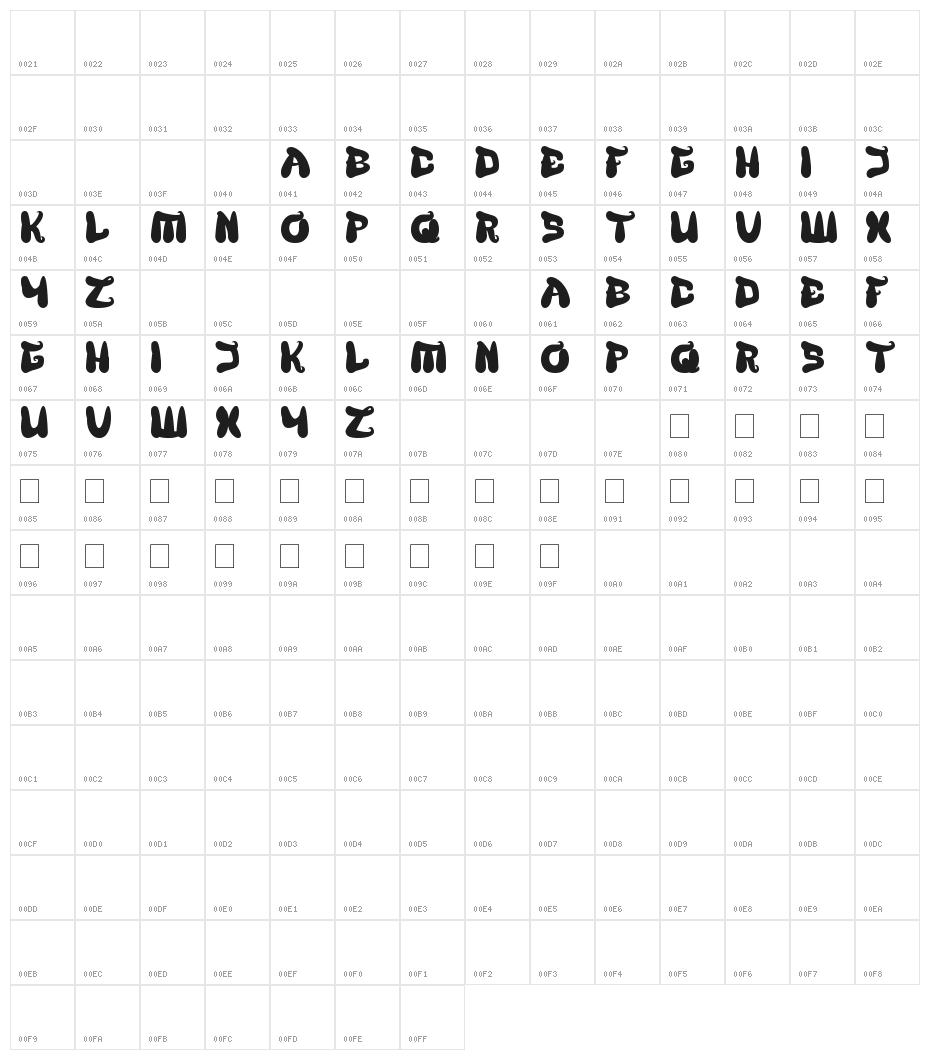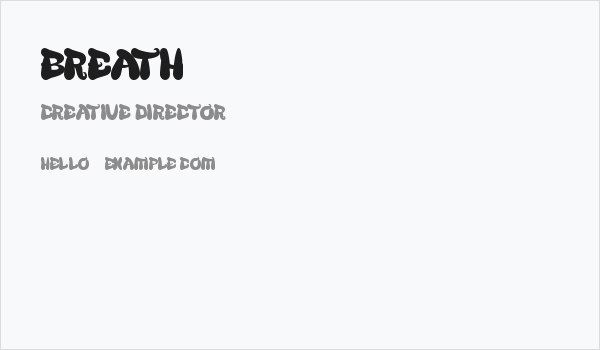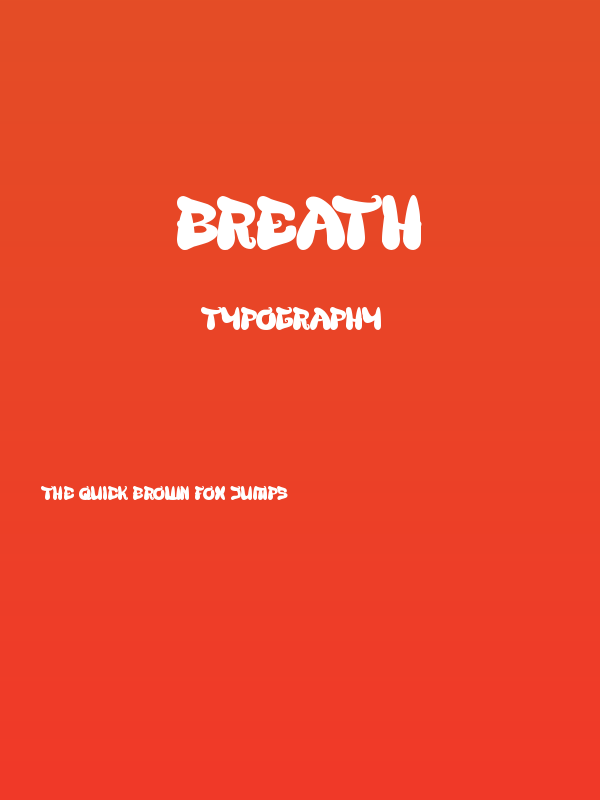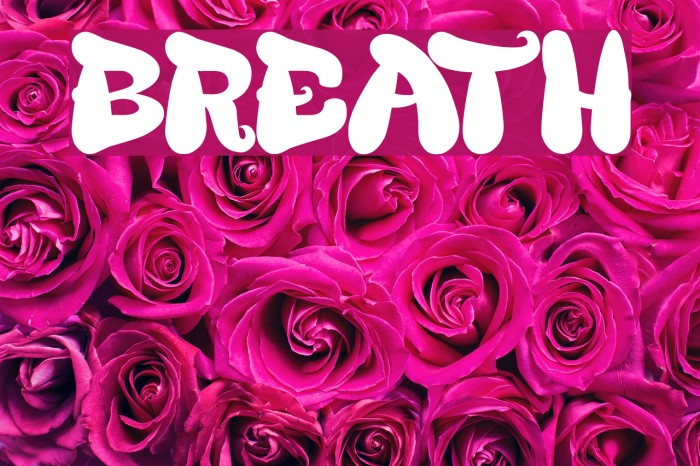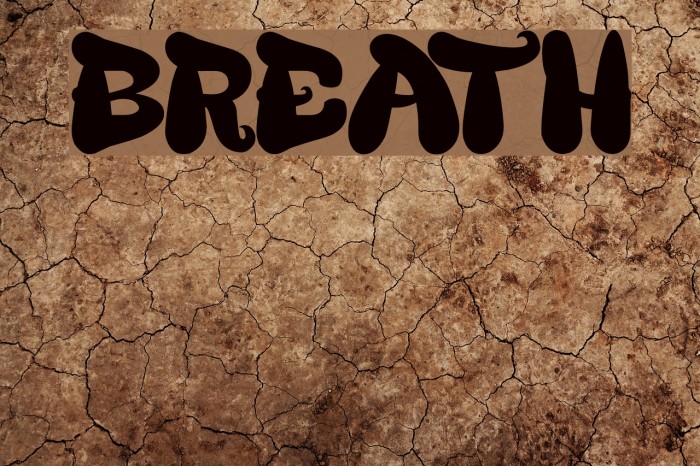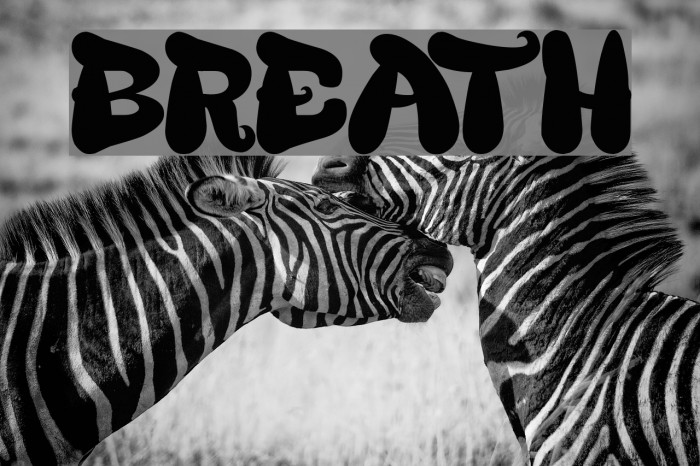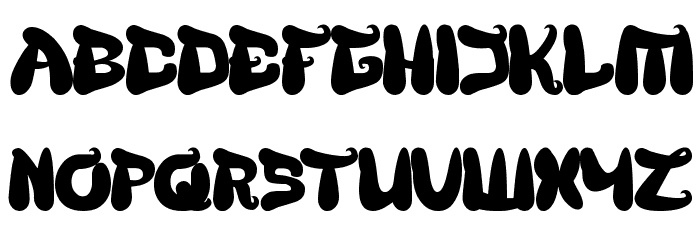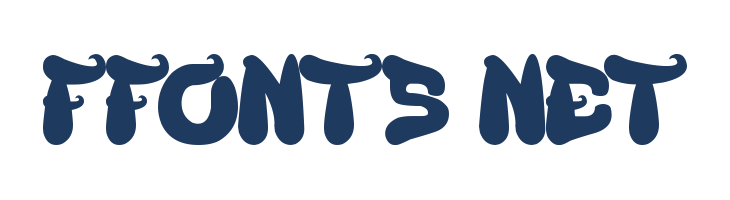
BREATH Font
BREATH Description
This font features a bold and playful design with a unique decorative flair. Each character is crafted with thick strokes and whimsical curls, giving it a lively and energetic appearance. The uppercase letters are particularly striking, with exaggerated curves and a sense of movement that makes them stand out. The overall style is reminiscent of retro or vintage designs, yet it maintains a modern twist with its boldness and creativity. This font is perfect for projects that require a fun and eye-catching typeface.
| Proposed Projects | Ideal for posters, logos, children's books, and any creative project needing a lively touch. |